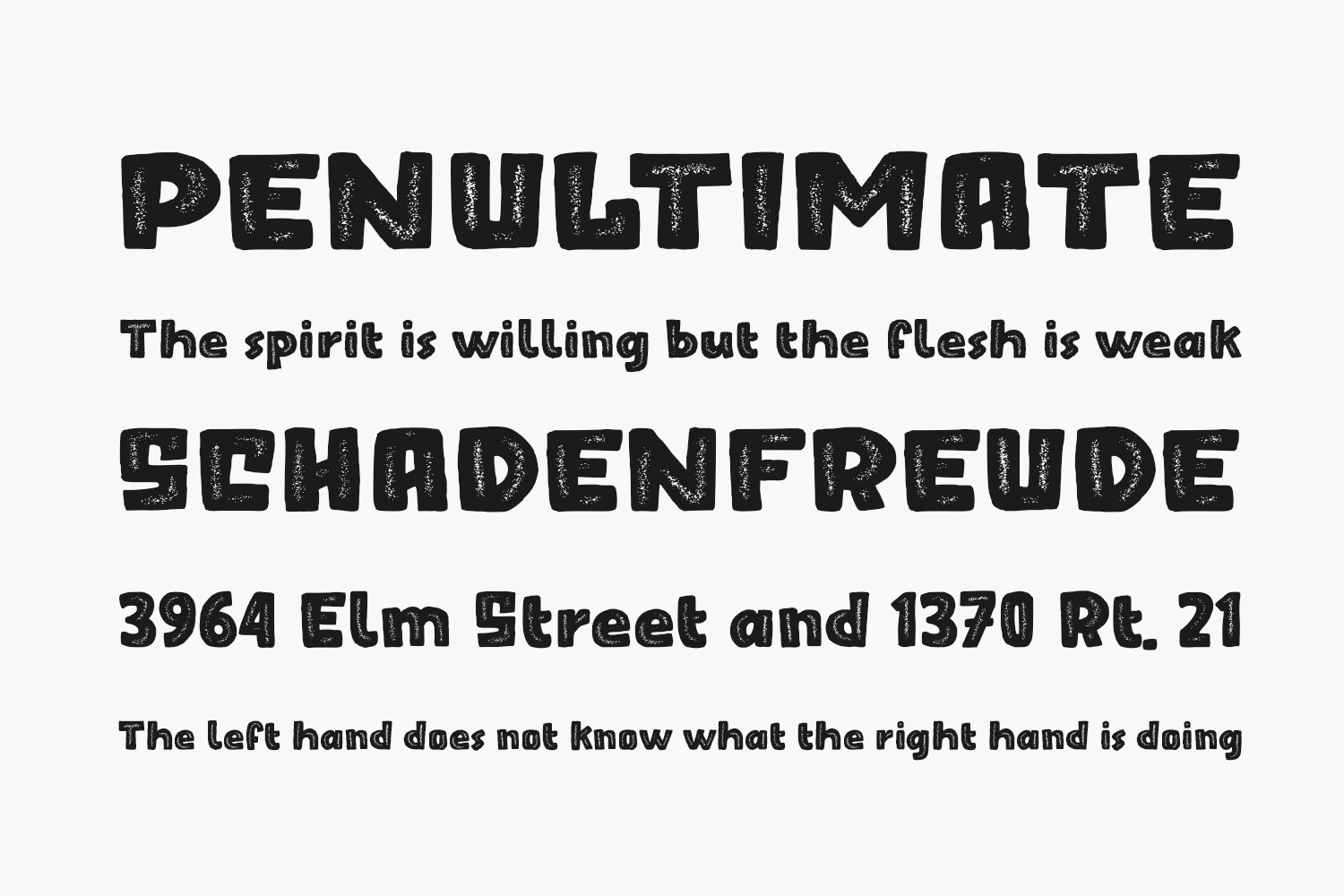
Introducing Rungkad Free Font – a textured display font designed to evoke a rugged texture, infusing a sense of nature and vintage charm. This font is an ideal choice for outdoor apparel, merchandise, event posters, films, and more. Rungkad Free Font is free for personal use only. Please purchase the full version for commercial use.
Designed by Sronstudio